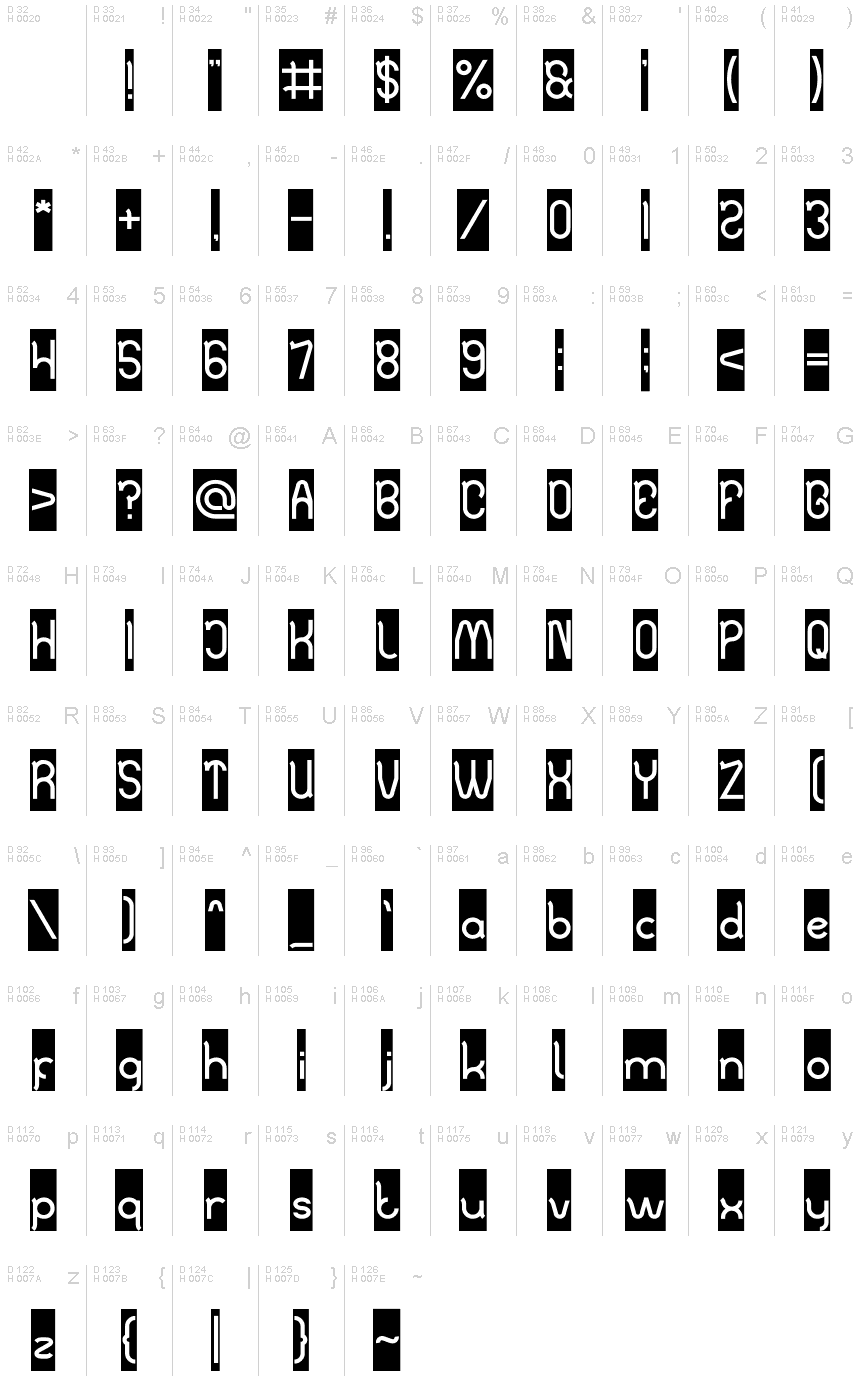
Auto Mobile-Inverse
Auto Mobile-Inverse font is a techno typeface designed by Weknow.
update several letter on capital case and lower case,
plus adding, bold, italic, bold italic, hollow, inverse, hollow inverse, inverse style